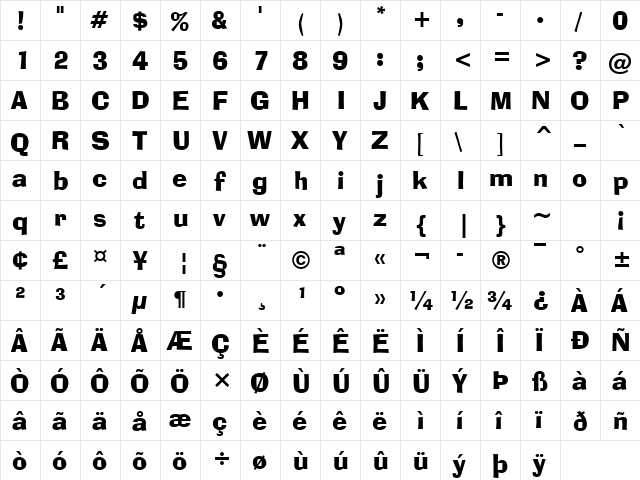
AdLib Win95BT Regular
Design Context for AdLib Win95BT Typeface
AdLib Win95BT is a composed and adaptable typeface that performs quietly and consistently across a wide range of design contexts.